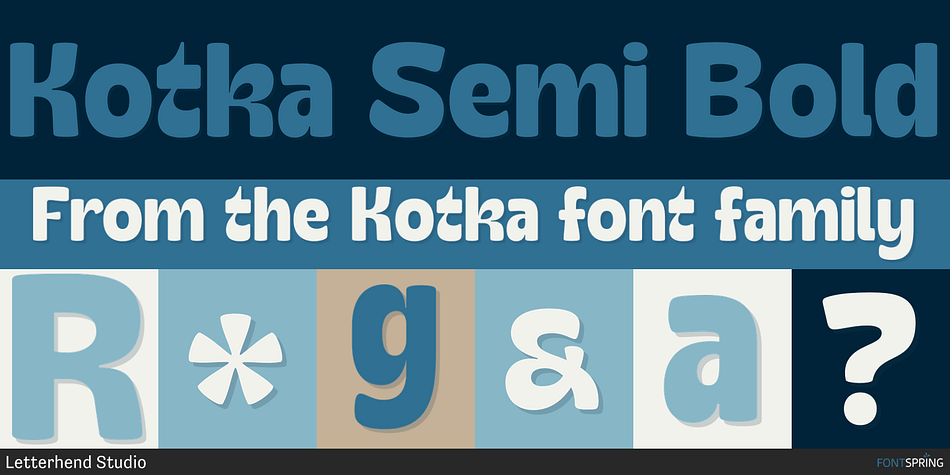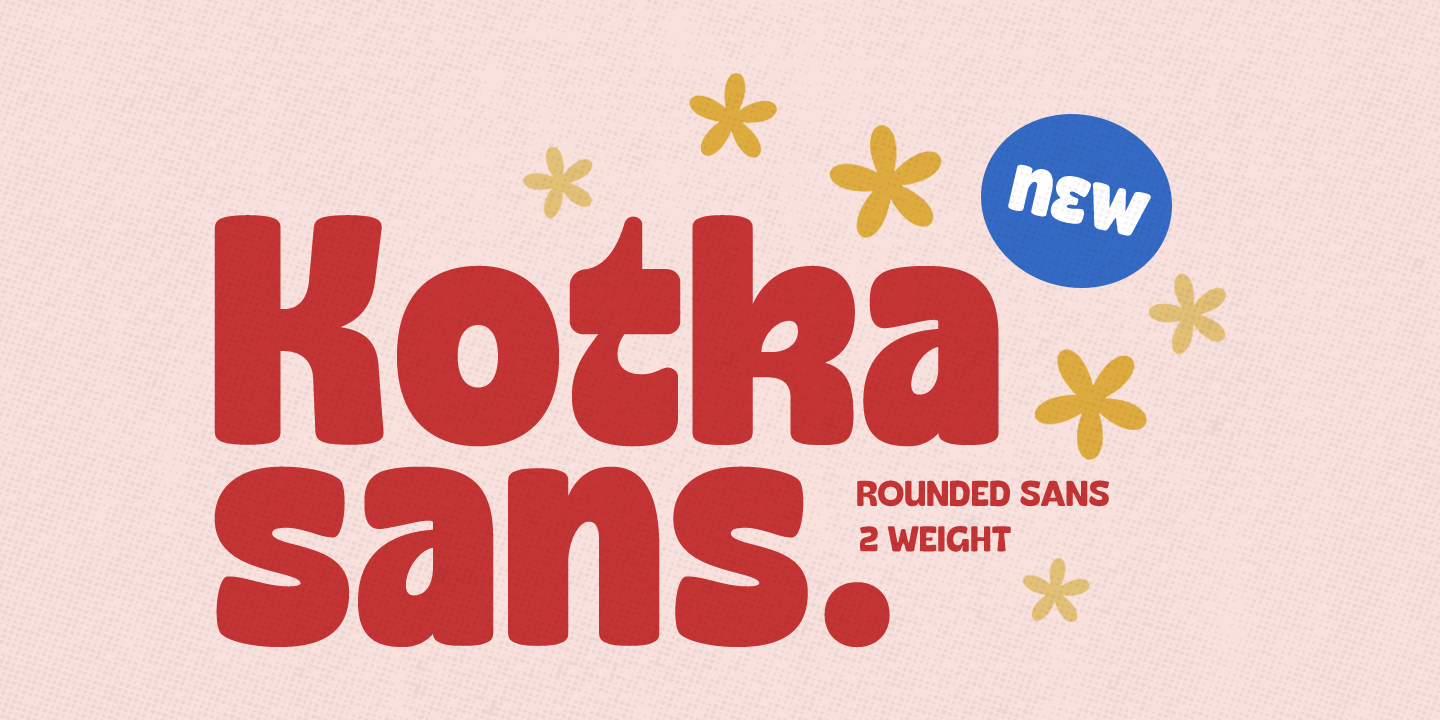
Kotka Semi Bold
Designed by Hendry Juanda, Kotka is a retro font family. This typeface has two styles and was published by Letterhend Studio.
Kotka is a charming and playful sans serif typeface featuring a rounded style. Available in two weights—basic bold and semi-bold—this font is ideal for creating eye-catching headlines, logos, titles, and quotes. Its versatile design makes it perfect for formal applications, including invitations, labels, magazines, books, greeting and wedding cards, packaging, fashion branding, makeup promotions, stationery, and advertising materials.
- Alternates Character